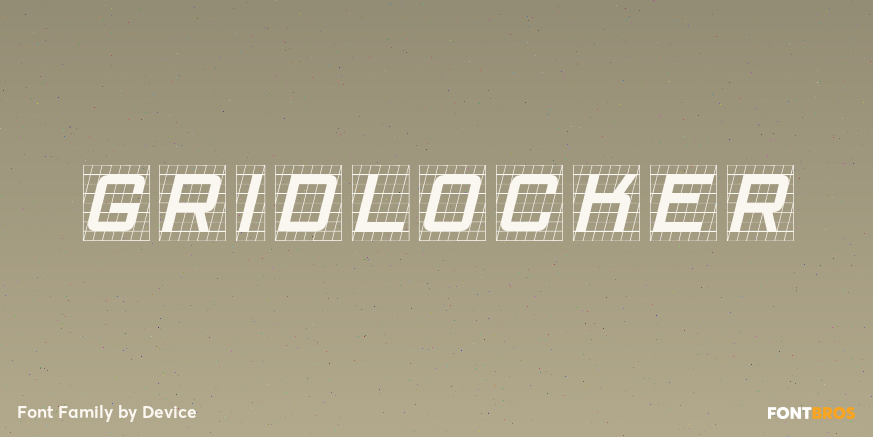
About Gridlocker
An isometric grid of a font, Gridlock takes an italicised modular approach to its letterforms. It is, however, not willfully strict about the application of that grid – the W and V and S, for example, have carefully considered diagonals that freely intersect…